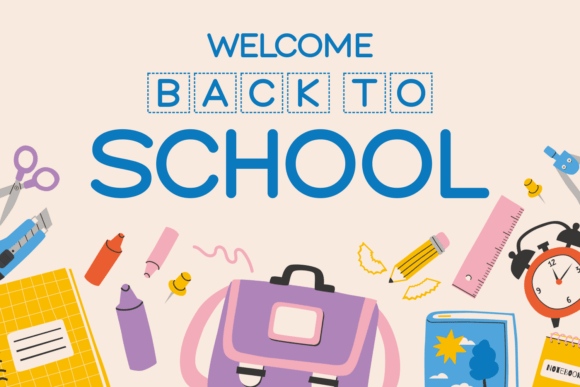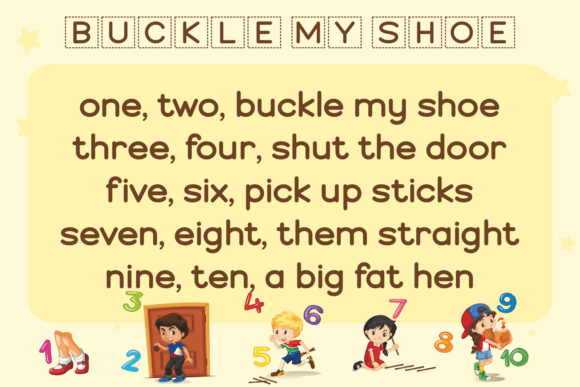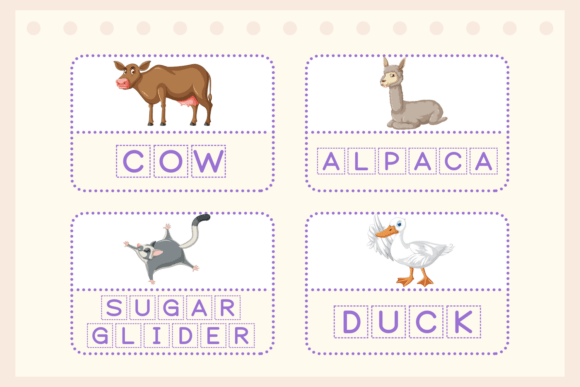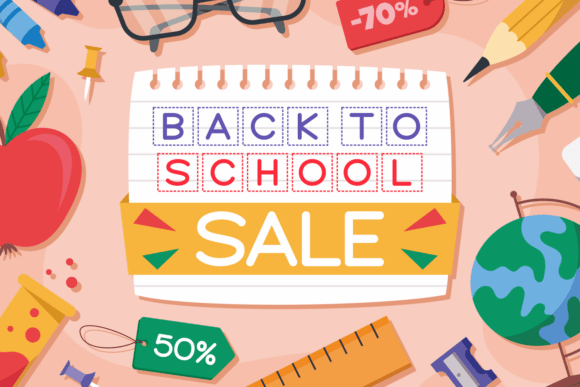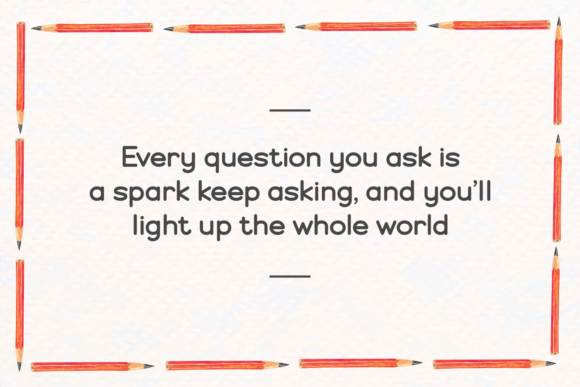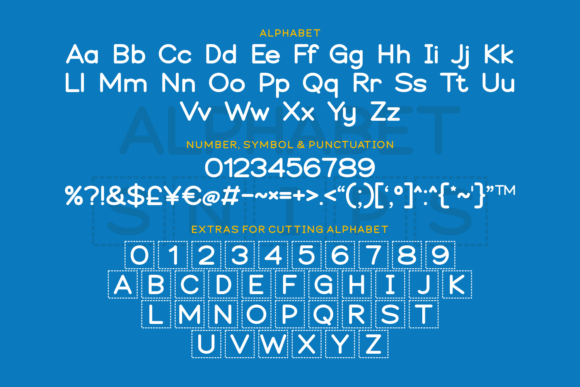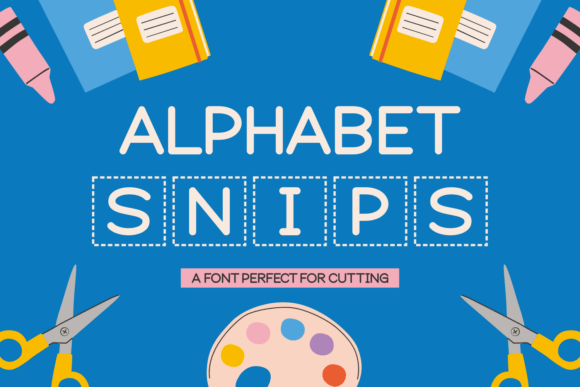
The Ultimate Font for Early Learners: A Deep Dive into Alphabet Snips
I’ll never forget the time I was working on a project for a client’s kindergarten class. I needed a font that was not only playful and engaging but also easy for young learners to recognize and interact with. After scouring the internet for what felt like hours, I stumbled upon Alphabet Snips – a font that was specifically designed for early learners and classroom activities. It was love at first sight! 💕
With its rounded and friendly letterforms, Alphabet Snips was exactly what I needed to bring my project to life. But what really caught my attention was the unique feature of each letter being enclosed in dashed-line boxes, making it perfect for cut-and-paste exercises, letter recognition games, crafts, and other hands-on learning projects.
What I Love About Alphabet Snips ✨
• ✅ Playful and creative design: Alphabet Snips is a font that is sure to capture the attention of young learners. Its playful and creative design makes it perfect for educational resources, crafts, and other hands-on learning projects.
• ✅ Easily recognizable letterforms: The rounded and friendly letterforms make it easy for children to recognize and interact with.
• ✅ Dashed borders for precise cutting: The dashed borders guide precise cutting for both digital and printable materials, making it perfect for cut-and-paste exercises and crafts.
• ✅ OpenType features and glyphs: Alphabet Snips comes with a range of OpenType features and glyphs, making it versatile and easy to use.
• ⚠️ Limited use cases: While Alphabet Snips is perfect for early learners and classroom activities, it may not be the best fit for more formal or professional projects.
• ⚠️ May not work well with smaller font sizes: Due to the unique design of the font, it may not work well with smaller font sizes. It’s best used at larger font sizes to ensure the dashed borders and letterforms are clear and legible.
The Story Behind Alphabet Snips
Alphabet Snips was designed with early learners in mind. The creator, a passionate educator and designer, wanted to create a font that would make learning fun and engaging. With its unique dashed-line boxes and playful letterforms, Alphabet Snips was born.
Font Name Alphabet Snips Font
Author Dani (7NTypes)
What is Alphabet Snips? Alphabet Snips is a playful and creative font designed for early learners and classroom activities.
What makes Alphabet Snips unique? Each letter is enclosed in dashed-line boxes, making it perfect for cut-and-paste exercises, letter recognition games, crafts, and other hands-on learning projects.